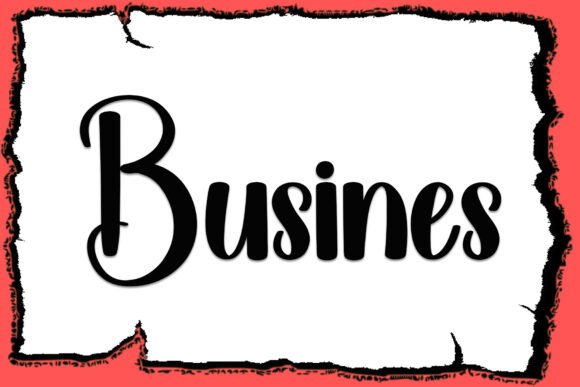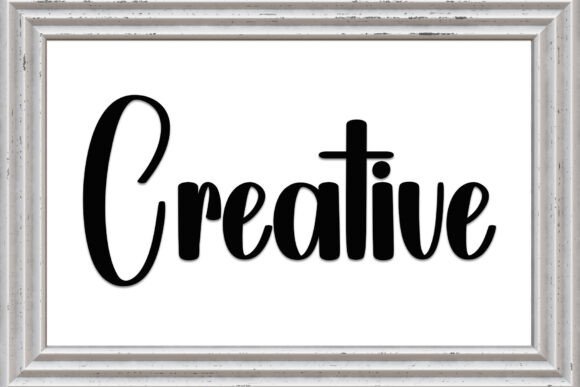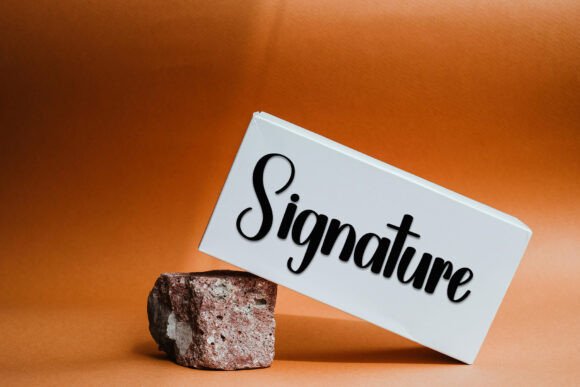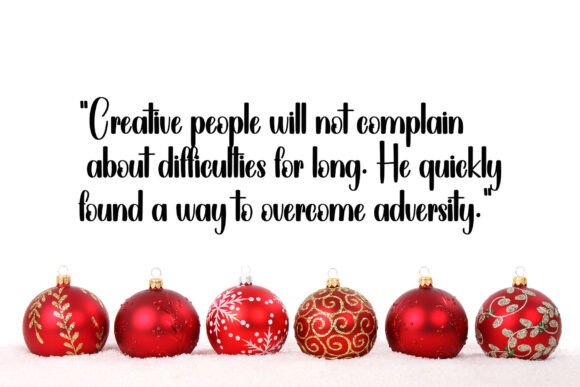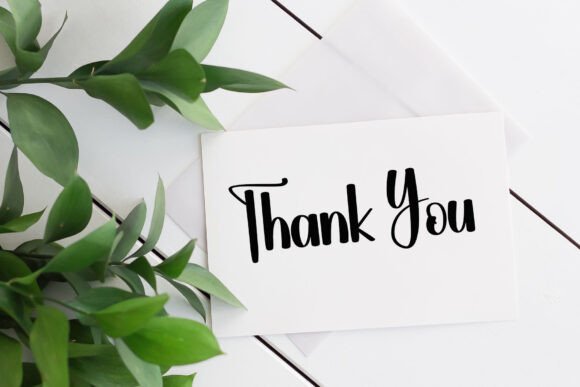
Introducing Heart Design Font: The Elegant Choice for Your Creative Projects
Are you searching for a font that exudes elegance and sophistication? Look no further than the Heart Design Font, a beautiful handwritten font that is sure to capture your heart. With its unique and timeless style, this font is perfect for designers and crafters looking to add a touch of love to their projects.
What is Heart Design Font?
Heart Design Font is a neat and beautiful handwritten font that is described by an elegant touch. Its incredibly distinct style makes it perfect for a wide range of creative projects, from romantic designs to elegant branding materials. Whether you’re a designer, crafter, or DIY enthusiast, this font is sure to inspire you to create something truly special.
Key Features of Heart Design Font
• Elegant and Sophisticated: Heart Design Font boasts an elegant and sophisticated style that is perfect for designs that require a touch of luxury.
• Handwritten with Love: This beautiful handwritten font is crafted with love and care, giving it a unique and personal touch.
• Timeless Style: The timeless style of Heart Design Font ensures that your designs will never go out of fashion.
• Versatile: This font is perfect for a wide range of creative projects, from romantic designs to elegant branding materials.
Why Choose Heart Design Font?
There are many reasons why Heart Design Font is the perfect choice for your creative projects. Here are just a few:
• Unique Style: Heart Design Font has an incredibly distinct style that sets it apart from other fonts.
• Elegant Touch: The elegant touch of this font makes it perfect for designs that require a touch of sophistication.
• Easy to Read: The clear and readable style of Heart Design Font ensures that your designs will be easy to read and understand.
• Perfect for Branding: This font is perfect for branding materials, such as logos, business cards, and brochures.
How to Use Heart Design Font
Using Heart Design Font is easy and straightforward. Here are a few tips to get you started:
• Pair it with Other Fonts: Heart Design Font pairs well with other fonts, such as sans-serif fonts and script fonts.
• Use it for Headings: This font is perfect for headings and titles, where its elegant style can really shine.
• Add a Personal Touch: Use Heart Design Font to add a personal touch to your designs, such as in invitations, greeting cards, and love letters.
Design Ideas with Heart Design Font
Here are a few design ideas to get you started with Heart Design Font:
• Romantic Invitations: Use Heart Design Font to create romantic invitations for weddings, anniversaries, and other special occasions.
• Elegant Branding: Use this font to create elegant branding materials, such as logos, business cards, and brochures.
• Beautiful Blog Posts: Use Heart Design Font to create beautiful blog posts that showcase your writing style.
• Stunning Social Media Graphics: Use this font to create stunning social media graphics that will grab the attention of your followers.